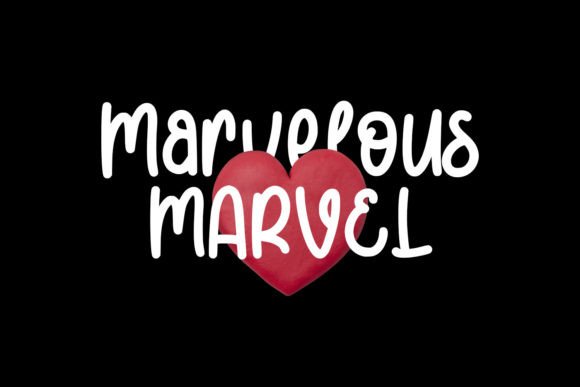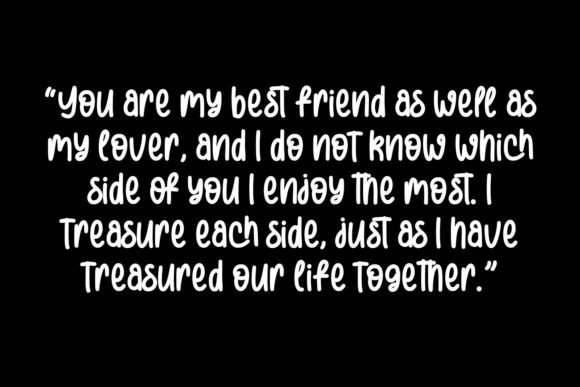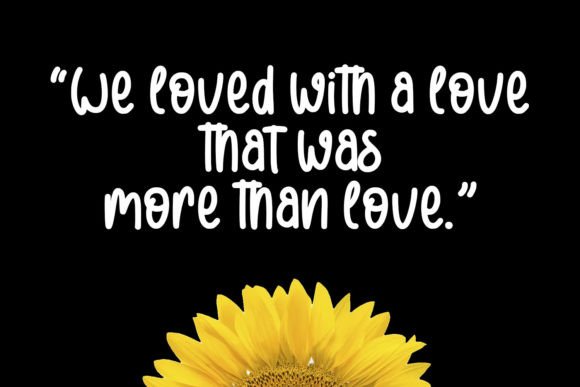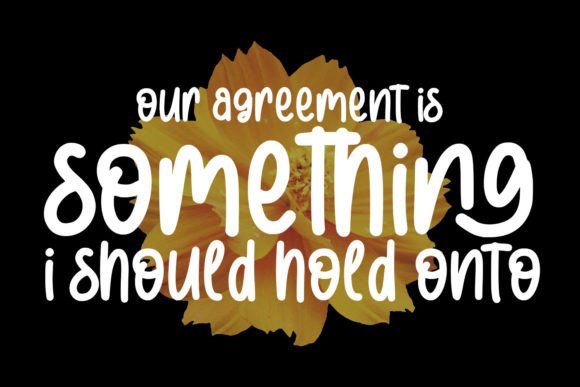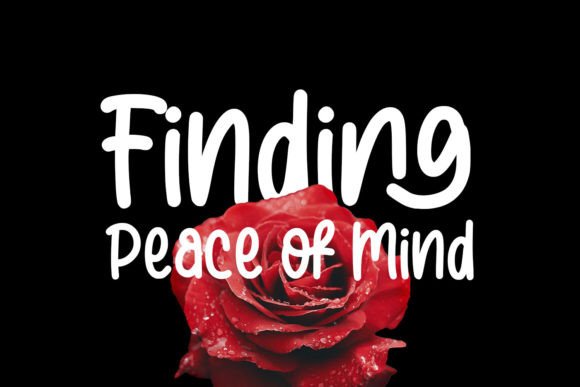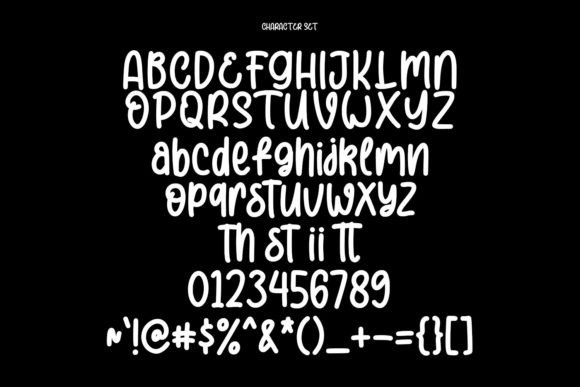
Batternotch Font: Adding a Touch of Whimsy to Your Designs
In the world of typography, fonts play a crucial role in conveying the tone and personality of a design. If you’re looking for a font that exudes a sense of fun and friendliness, look no further than Batternotch. This handwritten font is perfect for designers and crafters who want to add a personal touch to their projects. In this article, we’ll dive into the world of Batternotch font, exploring its features, uses, and benefits.
What is Batternotch Font?
Batternotch is a fun and friendly handwritten font that is designed to bring a touch of whimsy to your designs. With its casual charm and playful look, this font is perfect for a wide pool of design ideas requiring a handwritten touch. Whether you’re working on a project for a client or creating something for personal use, Batternotch is sure to add a dash of personality to your work.
Key Features of Batternotch Font
So, what makes Batternotch font so special? Here are some of its key features:
- Handwritten look: Batternotch has a genuine handwritten look that is perfect for designs that require a personal touch.
- Fun and friendly: This font exudes a sense of fun and friendliness, making it perfect for projects that require a lighthearted tone.
- Casual charm: Batternotch has a casual charm that is perfect for designs that require a relaxed and informal look.
- Playful look: This font has a playful look that is sure to add a dash of personality to your designs.
Uses of Batternotch Font
Batternotch font is perfect for a wide range of design projects, including:
- Branding and packaging: Use Batternotch to add a personal touch to your branding and packaging designs.
- Invitations and greeting cards: This font is perfect for creating invitations and greeting cards that require a handwritten touch.
- Social media graphics: Use Batternotch to create social media graphics that are fun and engaging.
- Blogging and website design: Add a touch of personality to your blog or website with Batternotch font.
- Crafting and DIY projects: This font is perfect for crafters and DIY enthusiasts who want to add a personal touch to their projects.
Benefits of Using Batternotch Font
So, why should you use Batternotch font in your designs? Here are some of its benefits:
- Adds a personal touch: Batternotch font adds a personal touch to your designs, making them more relatable and engaging.
- Versatile: This font is versatile and can be used for a wide range of design projects.
- Easy to read: Batternotch font is easy to read, making it perfect for designs that require a clear and concise message.
- Unique: This font is unique and stands out from more traditional fonts, making it perfect for designers who want to create something different.
Tips for Using Batternotch Font
Here are some tips for using Batternotch font in your designs:
- Use it sparingly: Use Batternotch font sparingly to add a touch of personality to your designs.
- Pair it with other fonts: Pair Batternotch with other fonts to create a unique and interesting look.
- Keep it simple: Keep your design simple and clean to ensure that Batternotch font is the focus.
In conclusion, Batternotch font is a fun and friendly handwritten font that is perfect for designers and crafters who want to add a personal touch to their projects. With its casual charm and playful look, this font is sure to add a dash of personality to your designs. Whether you’re working on a branding project, creating social media graphics, or crafting a DIY project, Batternotch font is a great choice. So, why not give it a try and see how it can elevate your designs?